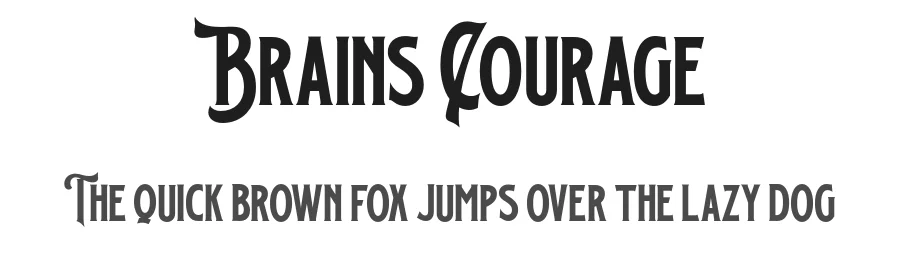
About FHA Condensed French NC Font
FHA Condensed French
One could speculate that FHA Condensed French probably started life as wood type for displays, headlines and posters. The exaggerated sharp serifs and condensed forms were not uncommon for that period. At some point, sign painters picked up Condensed French added their own character. At the end of the nineteenth century, Frank H. Atkinson included Condensed French in his samples of lettering for his book, ”Sign Painting, A Complete Manual.” This book became one of the definitive guides for signwriting and hand lettering.
In 1999, Mike Adkins digitized Condensed to add to our Atkinson collection. For its re-rele ase, Condensed French has been updated with more language support, ligatures, and OpenType alternates. It has true vintage character but still plays well in more modern designs. A font for all seasons, the condensed forms and sharp serifs fit in every layout from wildwest days posters and creepy film credits to Christmas ads and MotherÂ’s Day cards. While I canÂ’t really see FHA Condensed French as the font for phone aps or video game text, it will provide impact to logos, branding, and product labeling.
| Designer | Michael Adkins and James Stirling of the Fontry |
FHA Condensed French NC Font is a decorative font that shines as a display or heading face. Pair it with a clean sans-serif or serif font for body text — the contrast creates a clear hierarchy while the two styles stay balanced and easy to read.
FHA Condensed French NC Font
by Fontry